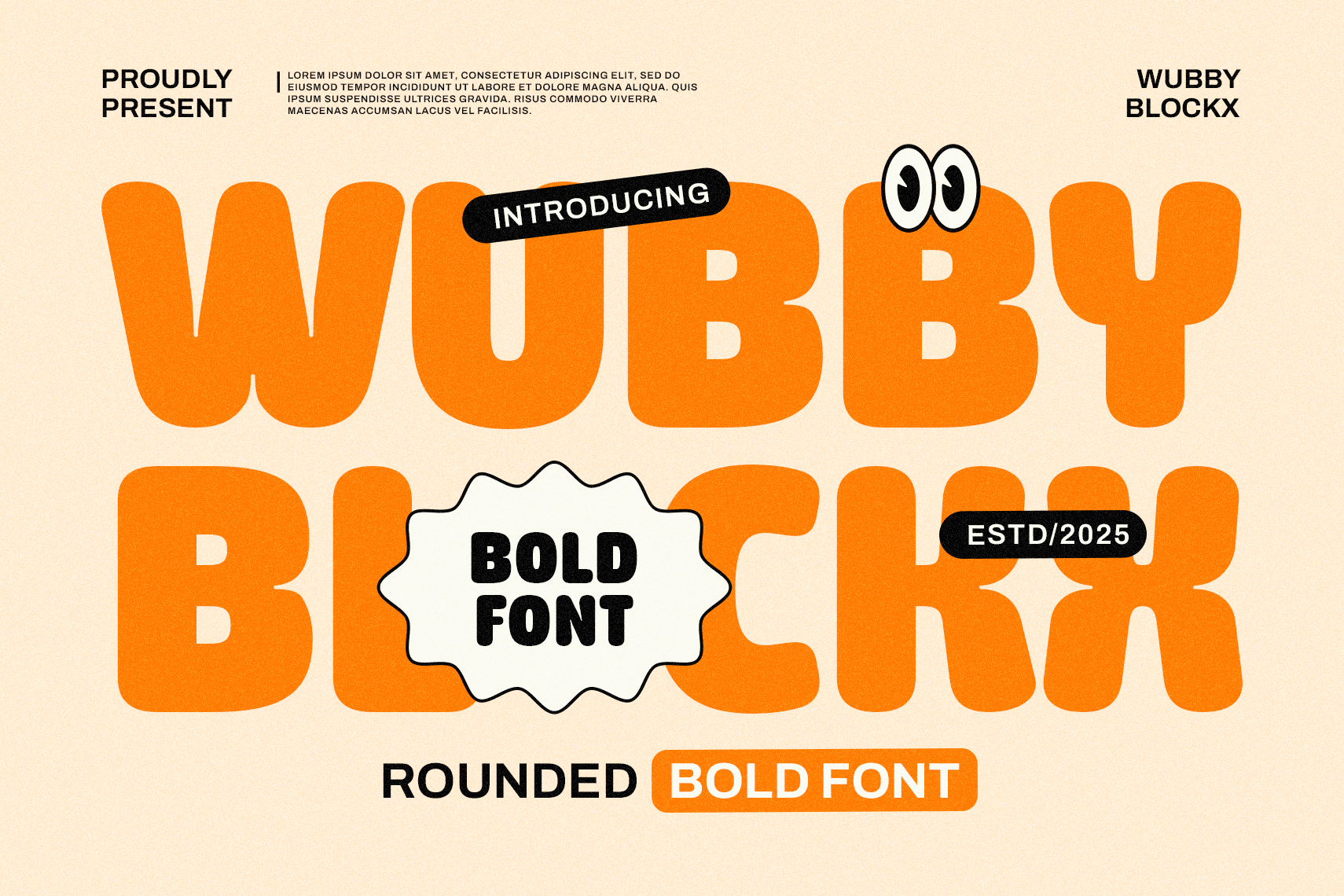
WubbyBlockx - Rounded Bold Font
WubbyBlockx is a bold display typeface with smooth rounded edges and a playful, bouncy personality. Its chunky structure and soft inktraps in both uppercase and lowercase characters bring charm and impact to any layout—perfect for designs that want to be seen and smiled at.
Whether you're creating a fun logo, vibrant packaging, or eye-catching headlines, WubbyBlockx delivers boldness with joy.